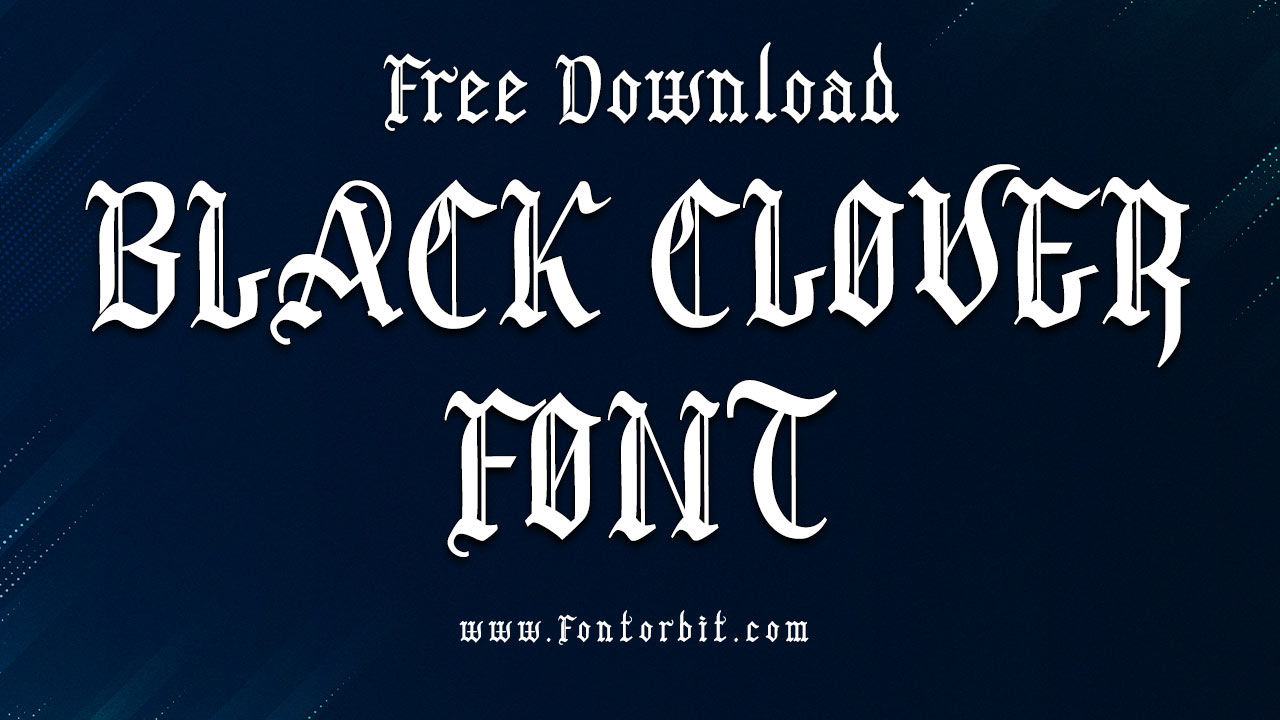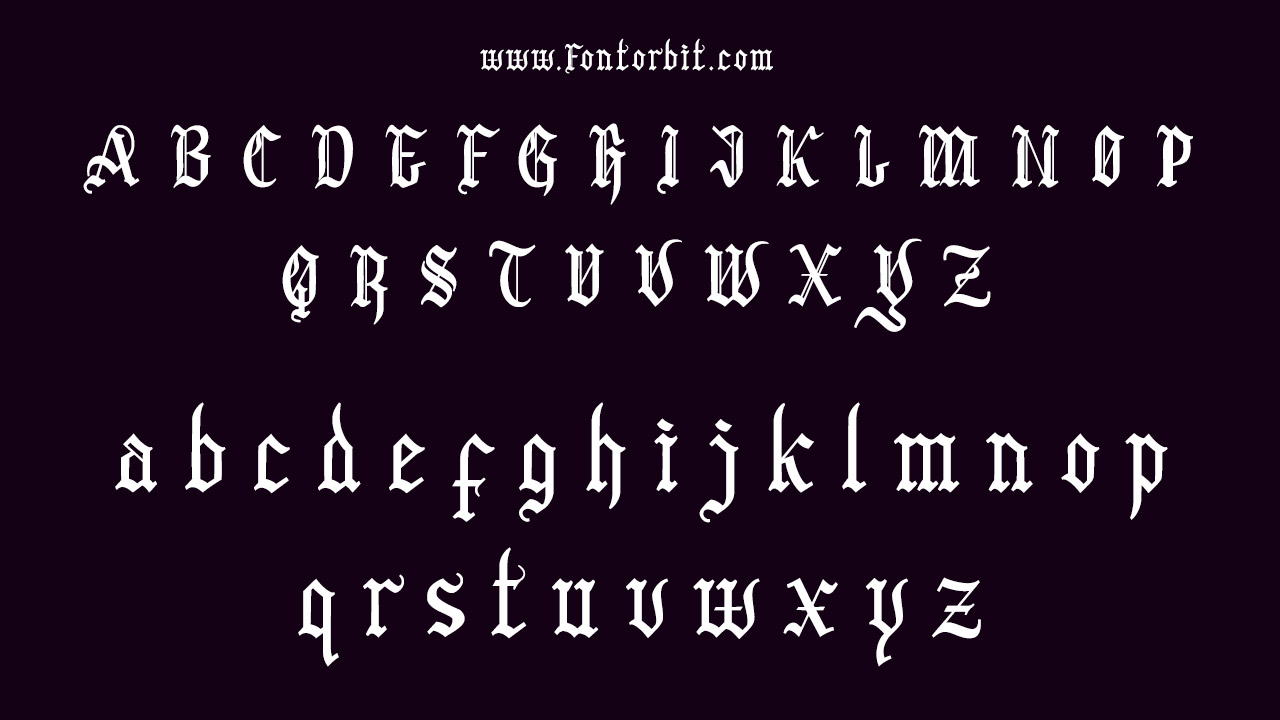
Black Clover is an extraordinary font duo designed by Lhotive Studio. Drawing inspiration from modern vintage styles, it merges classic elements with contemporary design sensibilities.
This font duo includes both a script and a display version, making it an adaptable and visually appealing choice for various creative projects. Its unique aesthetic makes it ideal for logos, branding, and promotional materials that require a distinct and memorable look.
Belonging to the Gothic category, Black Clover offers a combination of script and display styles that give designers flexibility in their work. The font features a comprehensive character set, supporting a variety of design needs with its blend of elegance and readability.
The stylistic contrast between the script and display versions enhances its versatility, making it suitable for a wide range of applications. Some key styles in the Black Clover font family include:
- Black Clover Regular
- Black Clover Script
- Black Clover Display
Whether you are looking to create a nostalgic feel or a modern, edgy look, Black Clover provides the tools to make your designs stand out. Here are some recommended use cases for this versatile font duo:
- Brandings
- Labels
- Packaging
- T-shirts
- Merchandise
- Flyers
- Wedding Invitations
Black Clover is a versatile and captivating font duo that brings a modern vintage flair to any design project. Its unique combination of script and display styles offers designers the flexibility to create both elegant and bold visual statements.
With its Gothic influences and modern applications, Black Clover is an excellent choice for those looking to enhance their creative work with a font that is both classic and contemporary.
Lhotive Studio designed a black Clover, although the exact year of creation isn’t specified. The font reflects a modern vintage style that is popular in contemporary design trends.